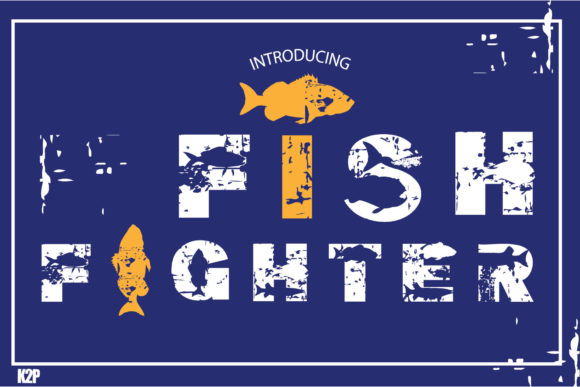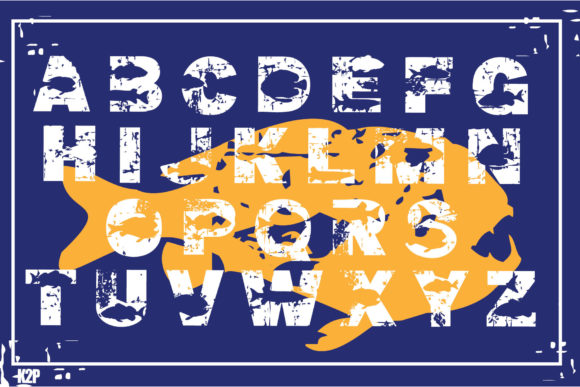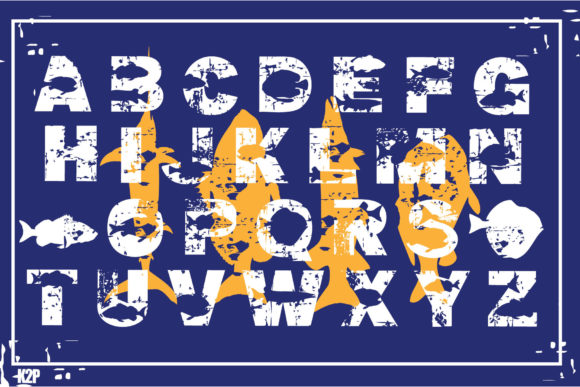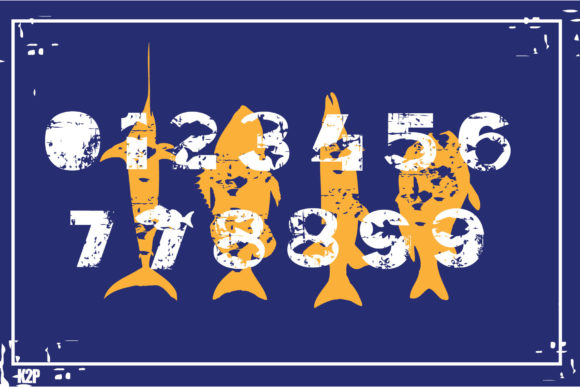
Fish Fighter Font
About the Fish Fighter Font
Add a touch of class to your work with the Fish Fighter Font, a truly exceptional typeface. Fish Fighter is a rough textured and assertive decorative font. It is perfect for various design ideas related to fishing, camping, or both. Have fun with this beautiful font, and explore its endless variations! This font is PUA encoded, which means you can access all of the glyphs and swashes with ease!
Fish Fighter’s assertive style makes it ideal for headlines, logos, and short impactful text on posters or packaging, particularly for brands focused on outdoor adventure or sporting goods. Its rough texture adds a sense of rugged authenticity. Avoid using it for body text or lengthy paragraphs; its decorative nature compromises readability in extended use.
The font’s core personality is bold and rebellious. To complement this, consider pairing it with a clean sans-serif like Open Sans for a balanced contrast, or a more rugged serif like Playfair Display for a cohesive, adventurous feel. A simpler, geometric sans-serif could also work well to provide a modern counterpoint to Fish Fighter’s raw energy.
For a slightly softer approach, a handwritten script font with a similar weight could be used for secondary text elements, though this pairing requires careful consideration of kerning and spacing to avoid visual clutter.
Fish Fighter Font Usage Examples
Fish Fighter Font Example